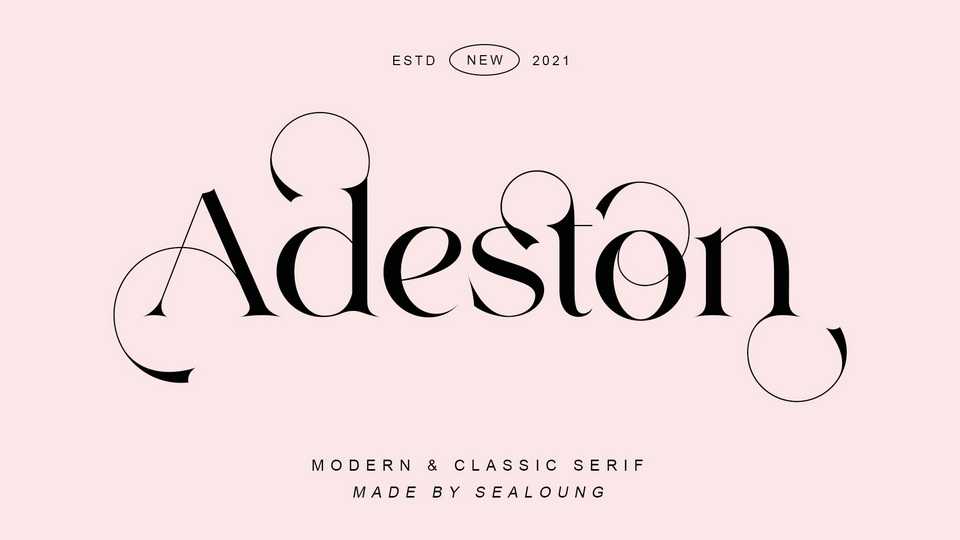
Download Adeston font, a very versatile timeless serif typeface. With it’s classic forms and modern features Adeston will cover a wide range of design projects starting from greeting cards to magazines, wedding invitations, websites etc.
Designer: Sealoung